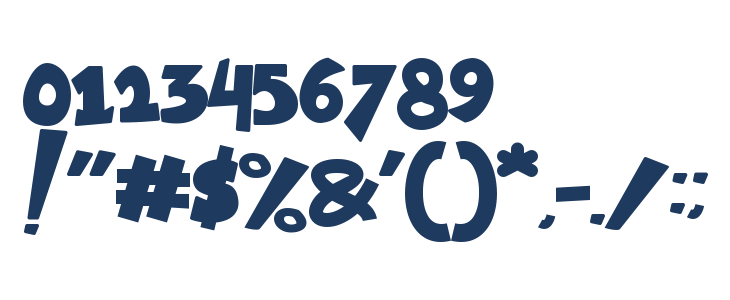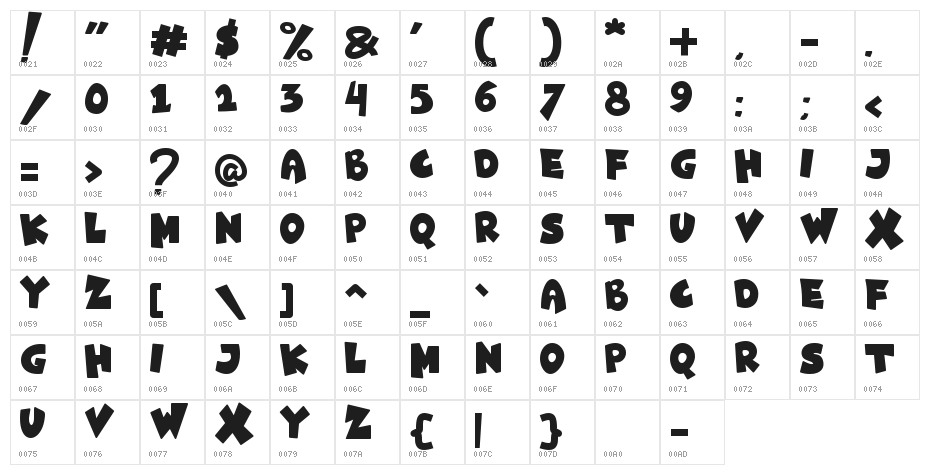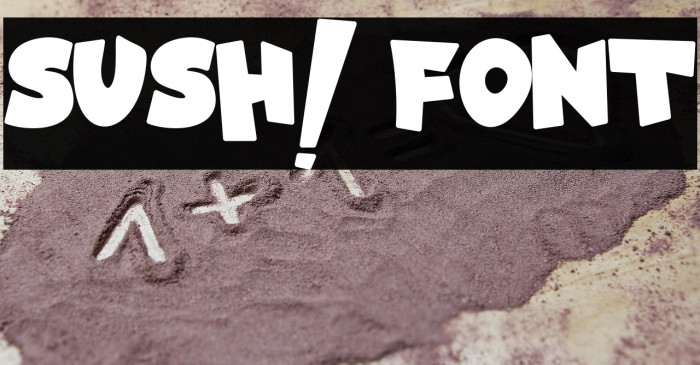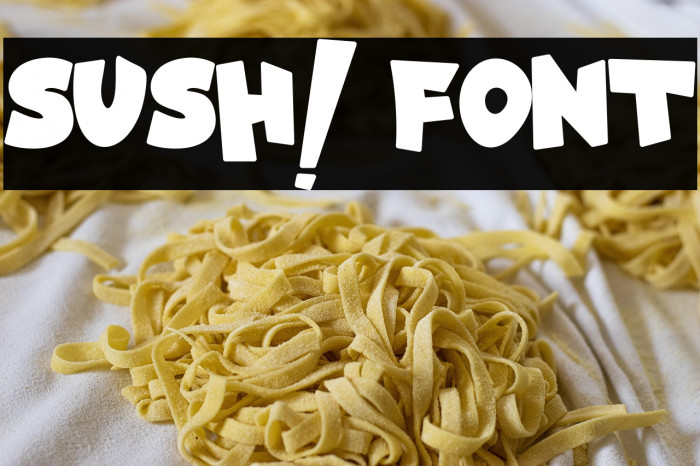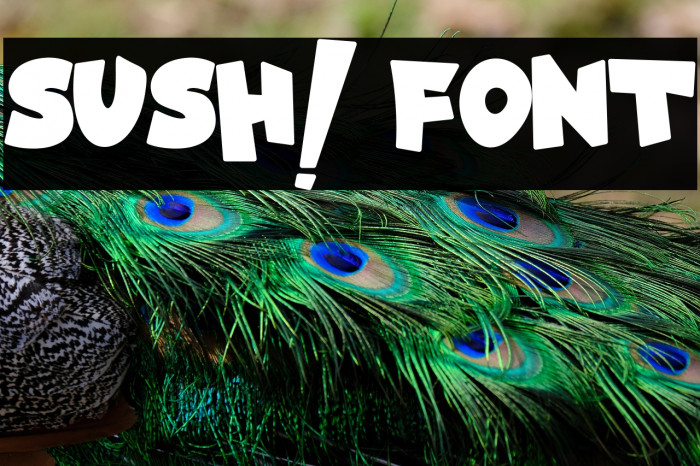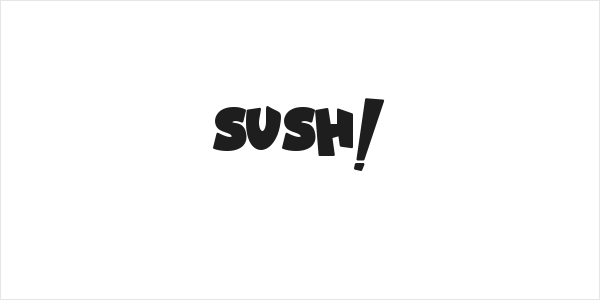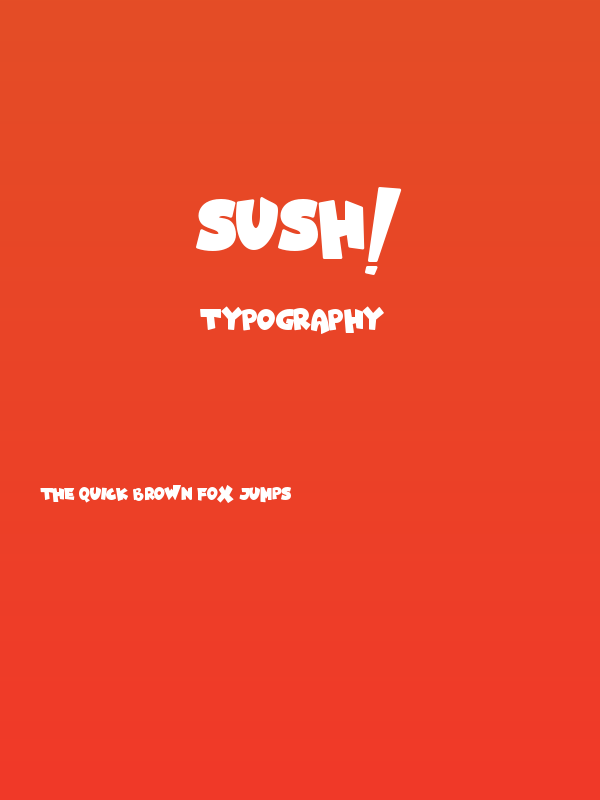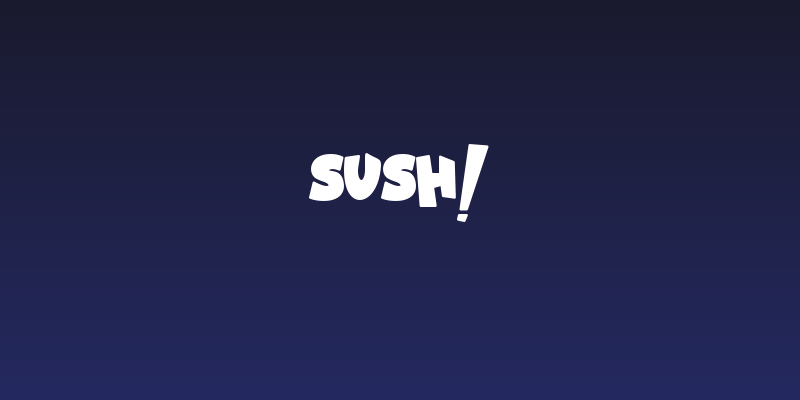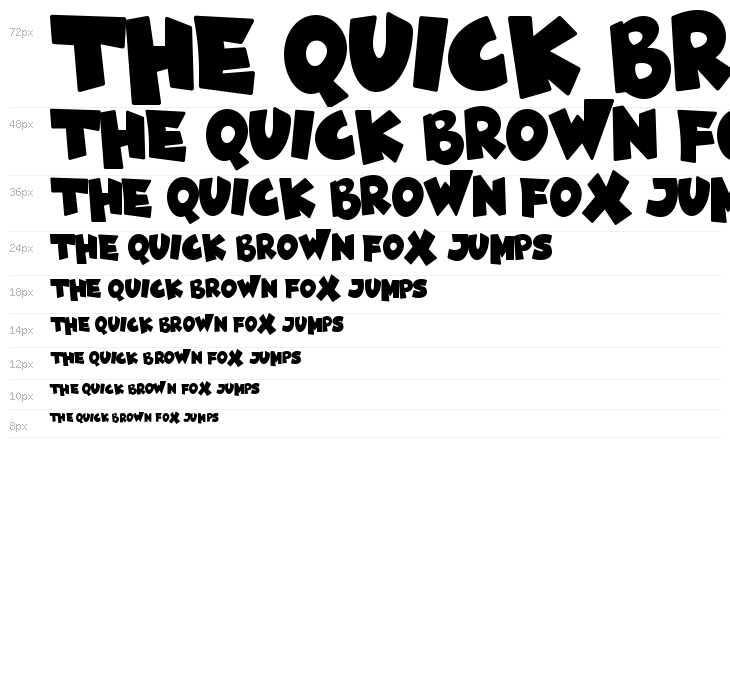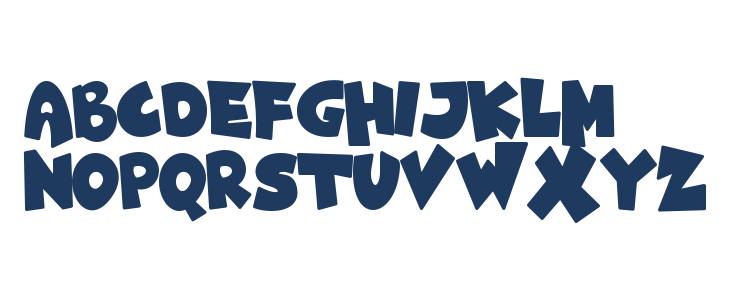
SUSH! Font
SUSH! Description
This font features a bold and playful design with exaggerated, rounded shapes and a slightly irregular baseline, giving it a lively and dynamic appearance. The characters are thick and chunky, with a cartoonish flair that makes them stand out. The uppercase and lowercase letters maintain a consistent style, while the numerals and special characters complement the overall aesthetic. This font's unique style is eye-catching and ideal for projects that require a fun and engaging look.
| Overall Style | Playful and Cartoonish |
| Proposed Projects | Ideal for children's books, comic strips, playful branding, and event posters. |